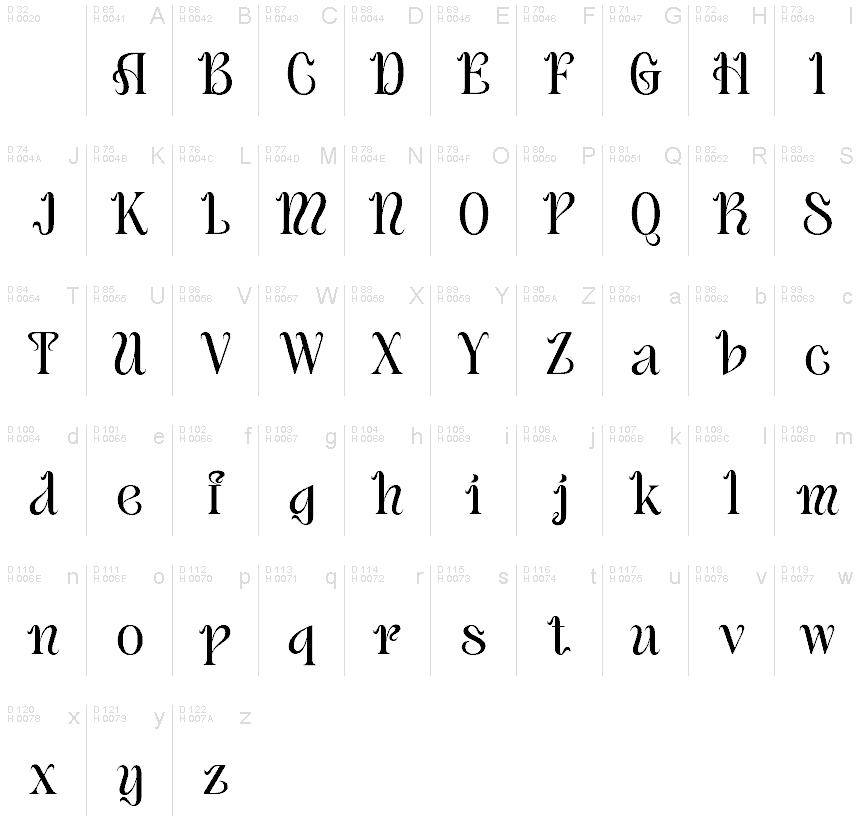
CS Bailey Demo Regular
CS Bailey font by Craft Supply Co. is a vintage serif typeface that seamlessly combines classic elegance with a refined aesthetic. Featuring slender glyphs and ornamental details, this font exhibits historical influence and infuses a formal tone into any design project. This font is free for all users, and it can be easily used.
The multipurpose CS Bailey can make a strong impact on websites, branding projects, posters, advertisements, book covers or layouts, title sequences, brochures and more! You can also use it in social media profiles or posts where a bit more elegance is required.